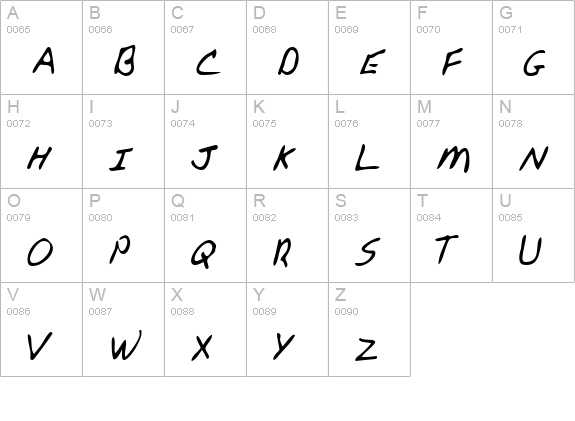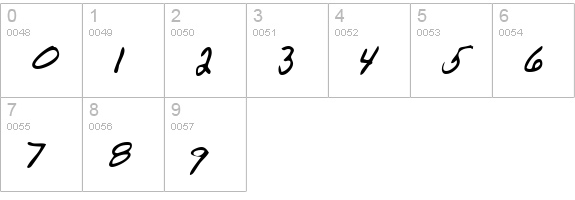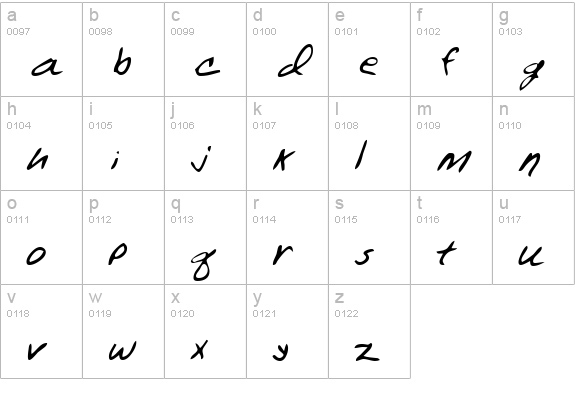
FrostysHand Regular is the standard, neutral variant in the FrostysHand typeface family \xE2\x80\x94 well suited to general body text, paragraphs, and standard typographic work.
FrostysHand Regular font is a charming and whimsical typeface that brings a playful touch to any design project. Its hand-drawn style radiates warmth and friendliness, making it perfect for greeting cards, invitations, posters, and more. With its unique and quirky appearance, FrostysHand Regular font adds a touch of personality to your creative endeavors. The best part? FrostysHand Regular font is available for free download at FontsMarket.com. This means you can easily access this delightful font and incorporate it into your designs without any cost. So why wait? Add FrostysHand Regular font to your font collection today and let your creativity shine!